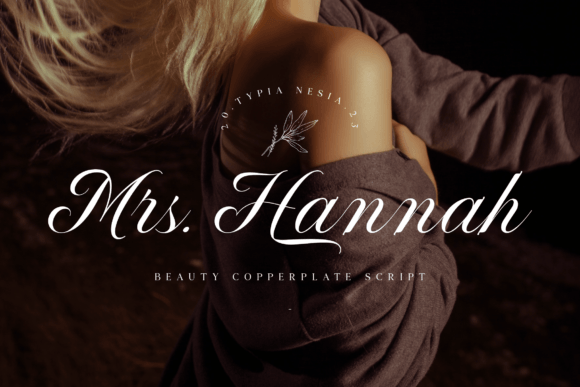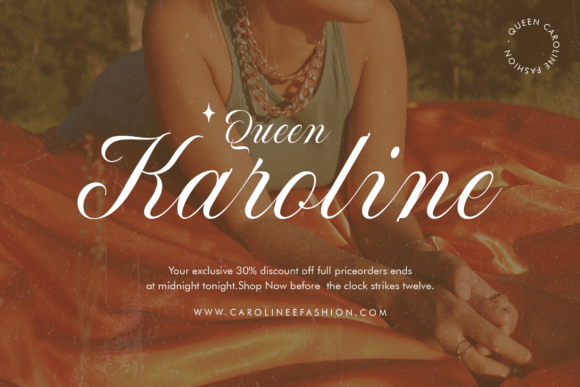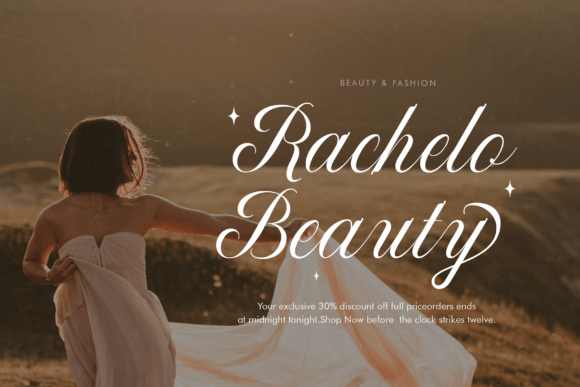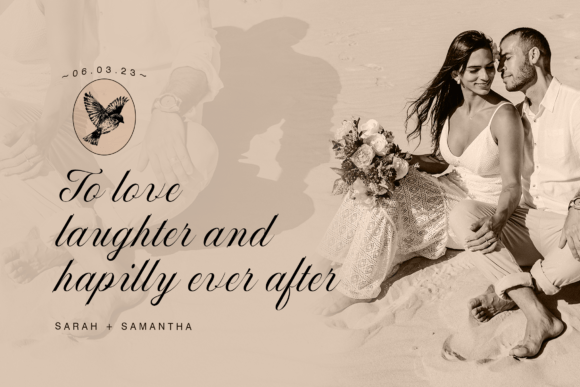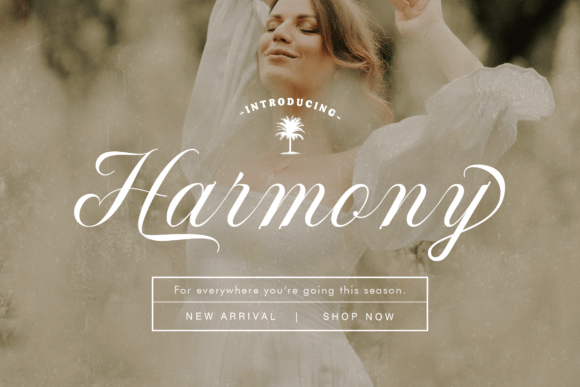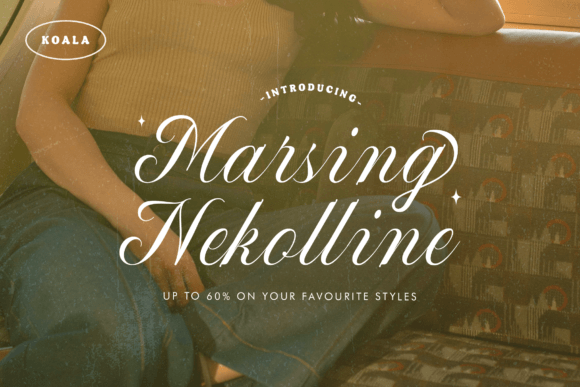
Mrs. Hannah is a luxurious calligraphy script font that exudes classic romance and timeless beauty, perfect for adding elegant sophistication to your special projects. Read more
Mrs. Hannah is an elegantly crafted calligraphy script font designed to embody classic romance and timeless beauty. Its fancy and sophisticated style is ideal for wedding invitations, love letters, branding, logos, and any design requiring an exquisite and lovely touch. With beautifully flowing strokes and refined details, Mrs. Hannah adds a sense of grace and luxury, making your creative projects stand out with romantic charm.